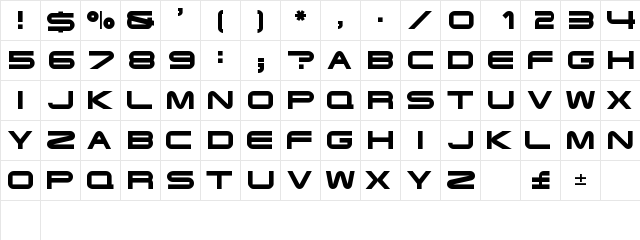
Xoireqe Regular
Design Context for Xoireqe Typeface
Xoireqe takes a measured approach to typography — its balanced proportions and neutral character make it a reliable workhorse for both digital and print work.
Pro Tip: Use Xoireqe in both headline and body roles to test its range before committing to a single application.